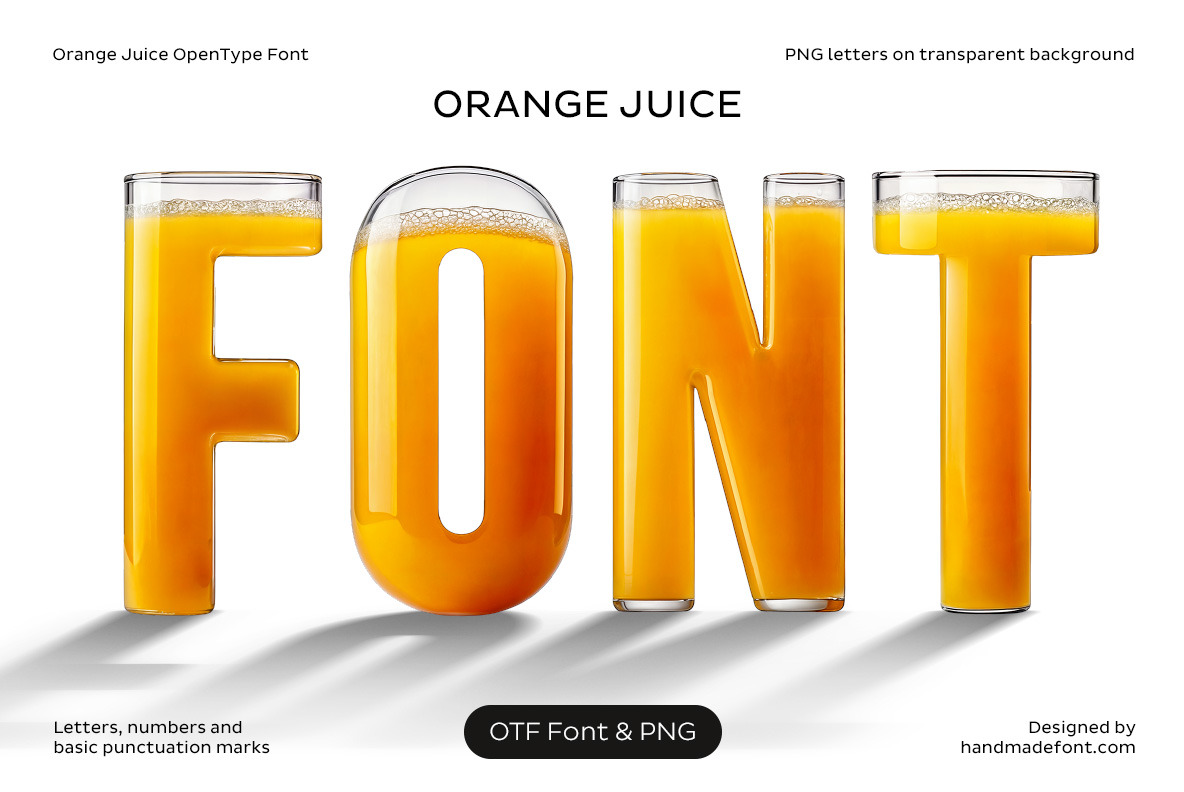
Orange Juice Font
Orange Juice Font is a delightfully fresh and zesty typeface, where every letter is a transparent glass container filled with rich, pulpy orange juice. Designed to quench your visual thirst, it bubbles with realism—complete with foam at the top and glowing citrus tones. Perfect for branding, advertising, or anything that needs a splash of sunshine, this font radiates energy, refreshment, and pure summer vibes. Whether you're promoting a juice bar, designing playful packaging, or creating juicy headlines, Orange Juice Font pours personality into every character. It's typography you can practically taste—cool, vibrant, and squeezed to perfection.